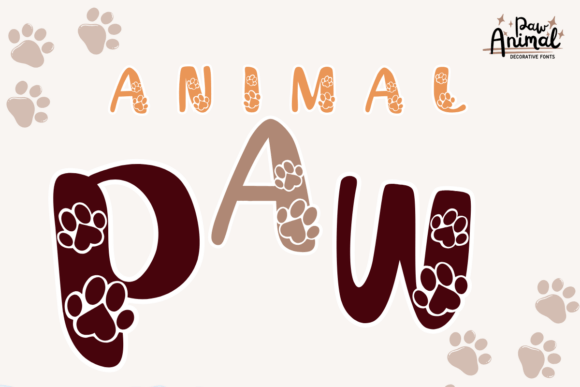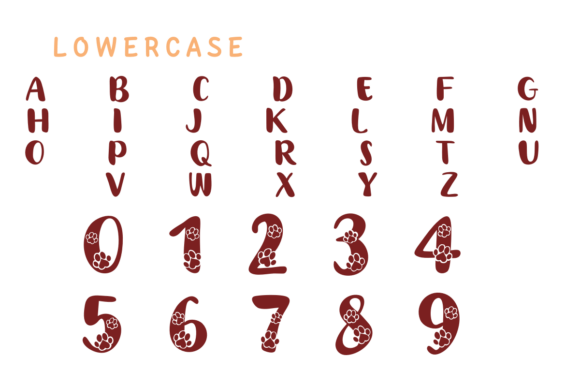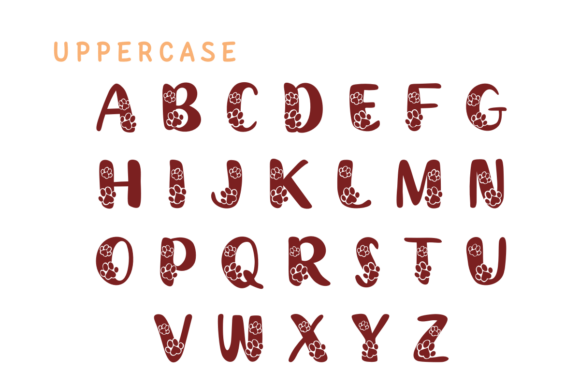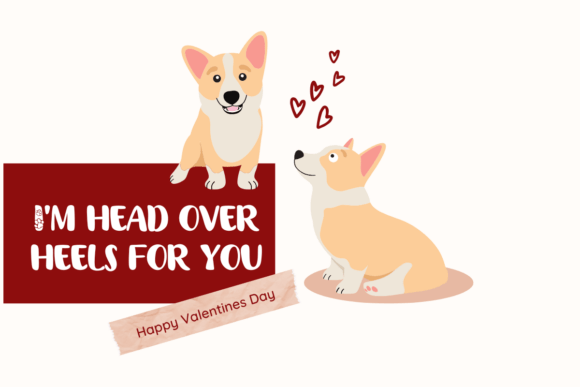
Animal Paw Font
About the Animal Paw Font
From logos to headlines, the Animal Paw Font is the perfect choice for making a lasting impression. Animal Paw Font
is an adorable decorative typeface that features playful paw print details embedded in each character. Perfect for pet-themed designs, animal shelter branding, children’s books, and educational materials, this font radiates warmth and friendliness. With a mix of bold and soft lettering styles, it brings a charming and approachable vibe that’s ideal for everything from party invites to product packaging for furry friends.
Animal Paw Font’s playful design excels in headlines, short text blocks on posters or packaging, and branding elements for pet-related businesses or children’s products. Its charming nature makes it perfect for invitations and smaller design details where its unique character can shine. However, the decorative nature of the paw prints makes it less suitable for body text or lengthy paragraphs; readability suffers at smaller sizes.
Pairing Animal Paw Font with a clean sans-serif like Open Sans for body text creates a balanced and approachable feel. For a more sophisticated look, consider pairing it with a classic serif font such as Garamond for a touch of elegance, or a script font like Allura for a whimsical, hand-written contrast.
The overall personality of Animal Paw Font is undeniably friendly and approachable, with a touch of boldness. Its charm makes it ideal for projects targeting a young audience or those wanting to convey a lighthearted, trustworthy brand image.
Animal Paw Font Usage Examples
Animal Paw Font Example